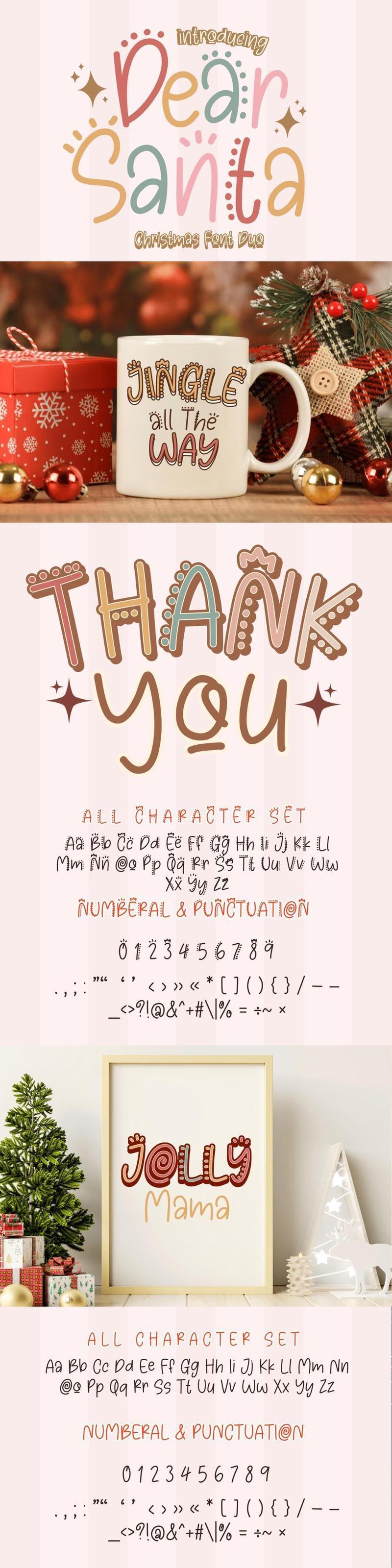
Dear Santa JK2P9SL
Dear Santa is a cute handwritten font Duo. It embodies playfulness and authenticity and is the perfect choice for all your favorite projects such as blog posts, logos, branding, ads, invitations, greeting cards, planners, photo albums, decorations, and more. Add it to any of your designs, and enjoy the results!